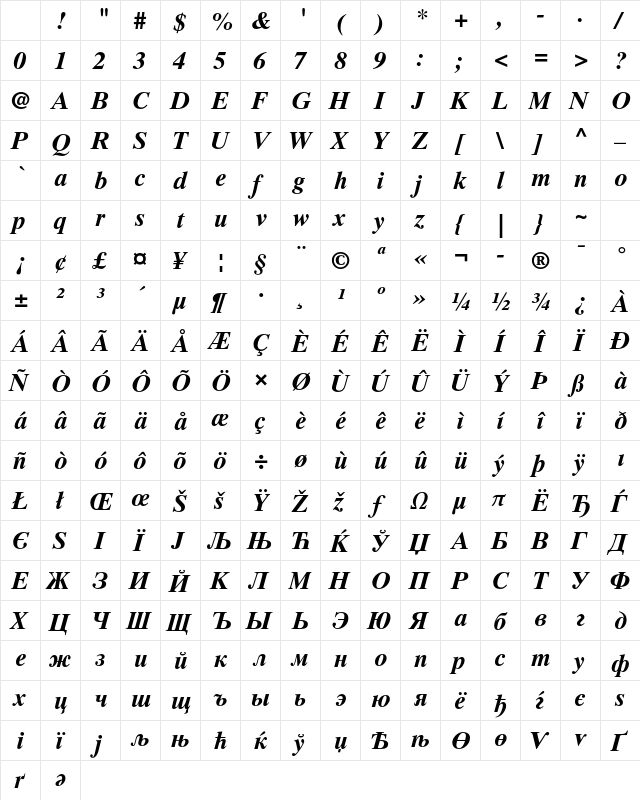
Times Ten LT Std Bold Italic
Designer: Linotype Staff
Design Context for Times Ten LT Std
Times Ten LT Std is a composed and adaptable typeface that performs quietly and consistently across a wide range of design contexts. The slanted form adds forward momentum and visual energy. Its bold stroke weight gives it real presence on the page.